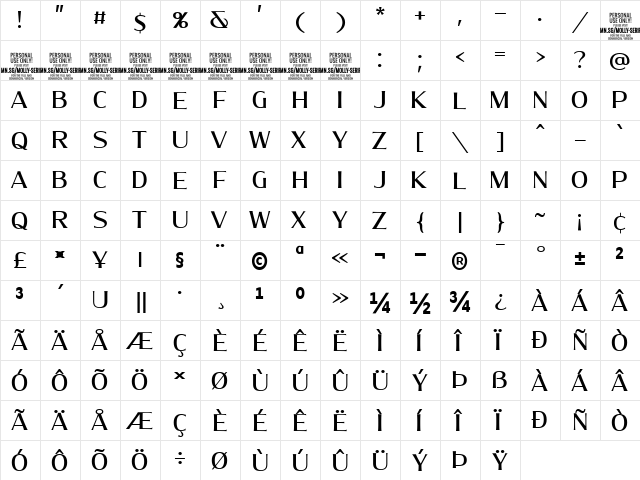
Molly Serif N PERSONAL Medium
Medium · Mans Greback Mans Greback ·
DesignerMans Greback
Design Context for Molly Serif N PERSONAL Typeface
Molly Serif N PERSONAL carries the refined structure of traditional serif typography, with bracketed terminals and considered proportions that communicate credibility and craft.